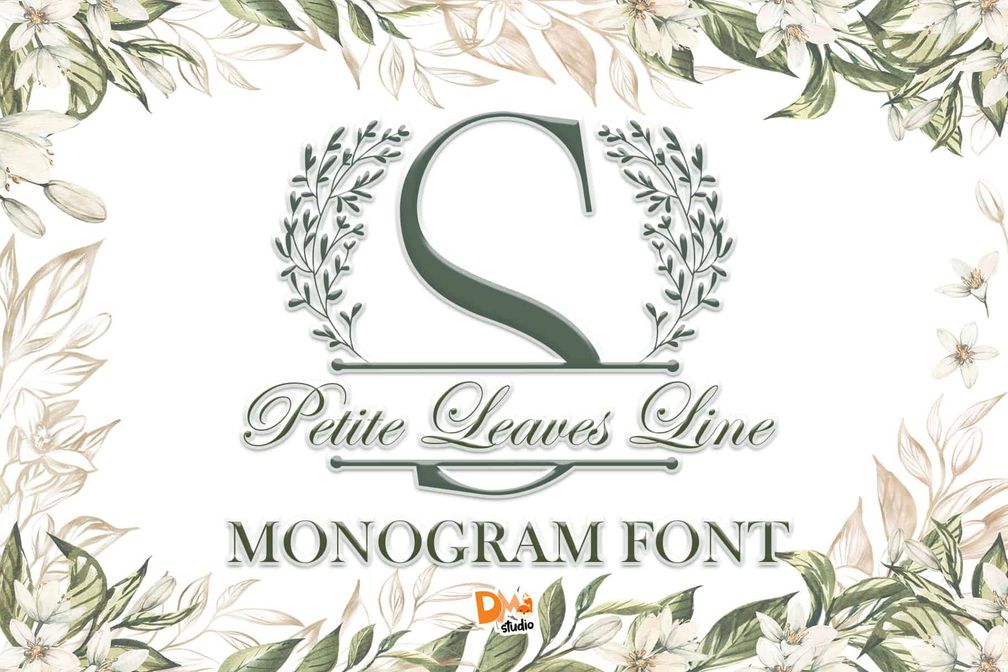
Petite Leaves Line Monogram
Petite Leaves Line Monogram – Elegant & Nature-Inspired Monogram Font
Petite Leaves Line Monogram is a delicate and refined monogram font featuring beautifully hand-drawn leaf accents within each letter. This decorative typeface is perfect for wedding invitations, luxury branding, personalized stationery, boutique packaging, and artistic projects. Its elegant botanical details bring a natural and timeless charm to any design.
• Intricate Leaf Line Art: Each letter is adorned with delicate, nature-inspired leaf designs.
• Perfect for Elegant & Luxury Projects: Ideal for wedding stationery, branding, personalized gifts, and upscale packaging.
• Timeless & Ornamental Aesthetic: A graceful blend of botanical elegance and monogram sophistication.